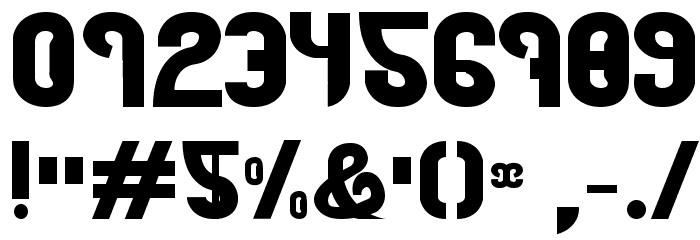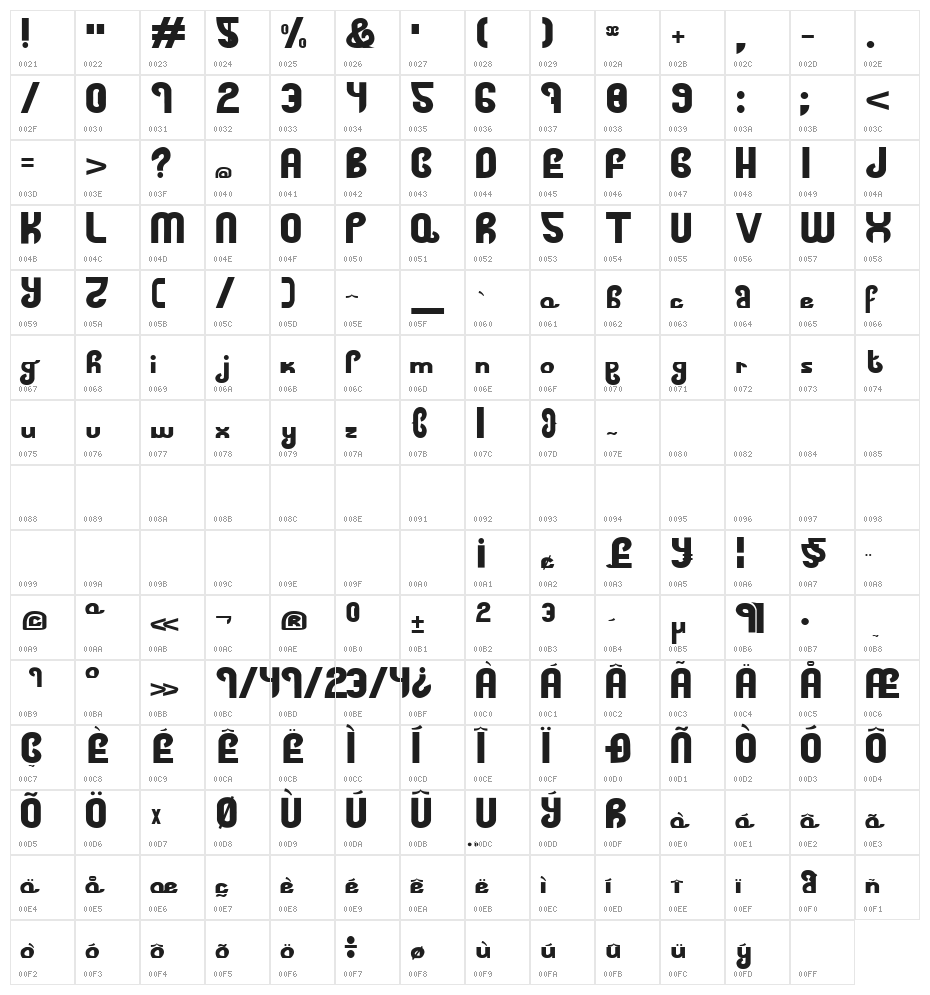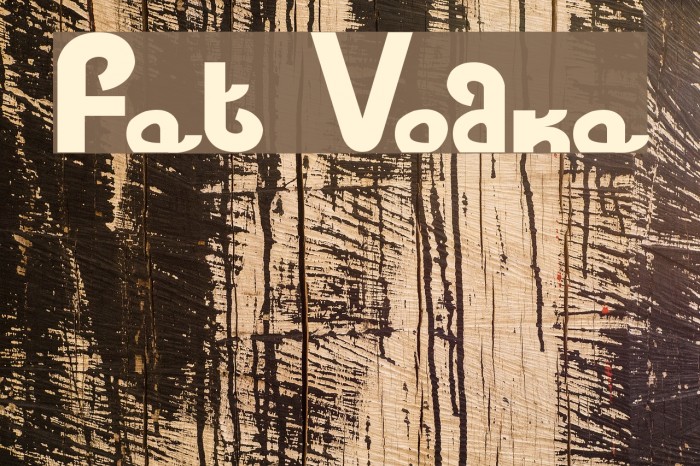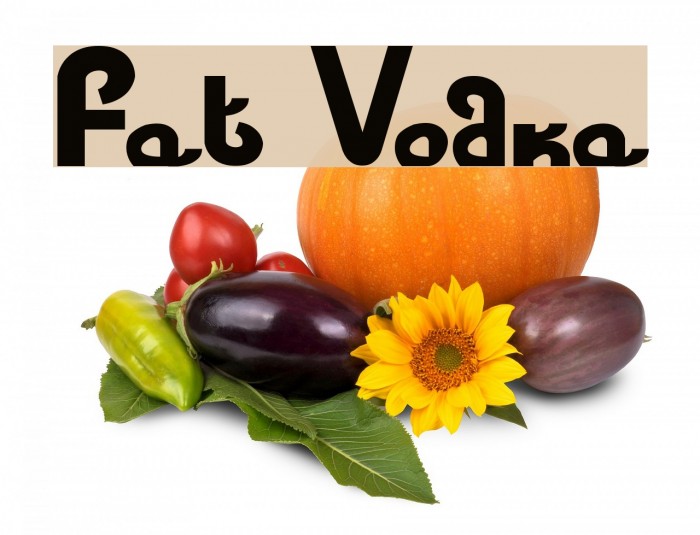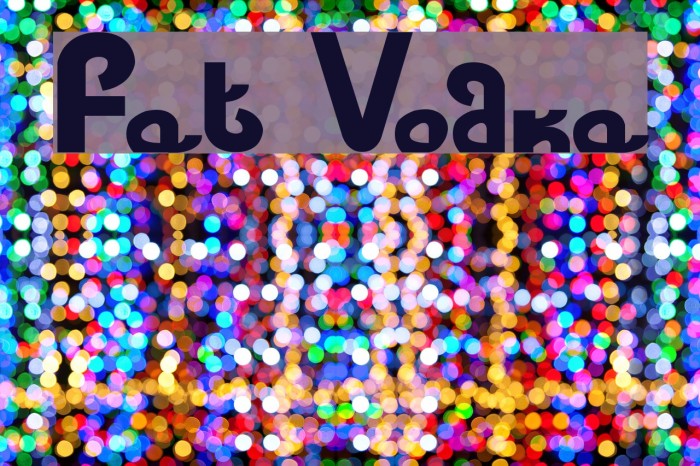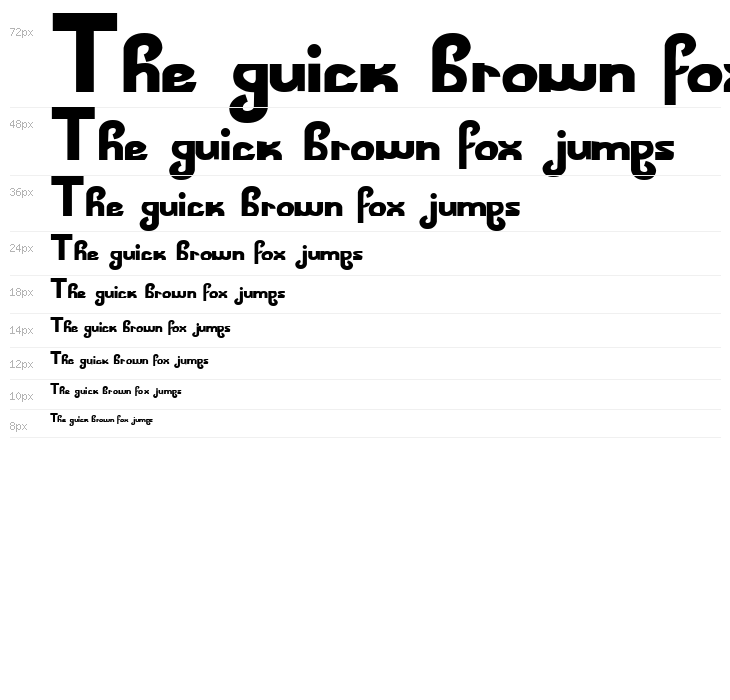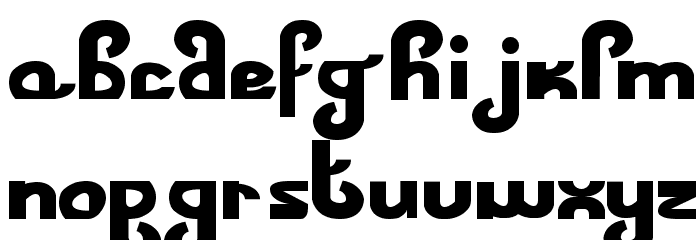
Fat Vodka Font
Fat Vodka Description
This font features bold, rounded characters with a playful and modern aesthetic. The uppercase letters are uniformly thick, giving a strong and impactful appearance, while the lowercase letters maintain a consistent style with unique curves and loops. The numbers are equally bold, ensuring readability and a cohesive look across all characters. Special characters are designed to match the overall style, adding a touch of whimsy. The font's design is suitable for projects that require a bold statement, such as branding or advertising, where visibility and style are key.
| Proposed Projects | Ideal for branding, advertising, posters, and headlines. |